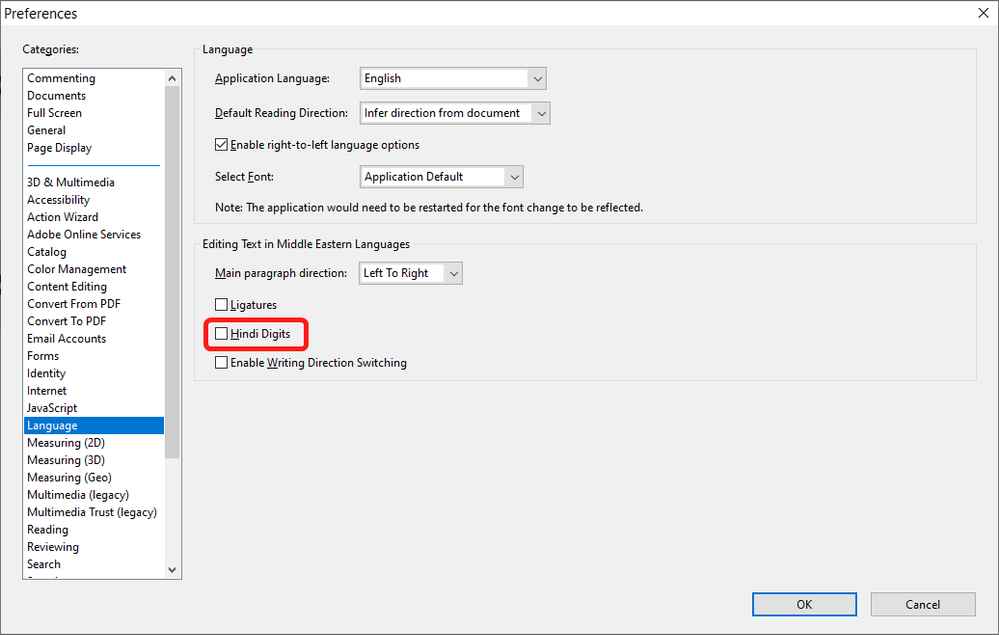
When I am editing text in some (not all) pdf files the characters are coming up like this:   ١٥/٠١/٢٠٢٤  regardlesss of what font is selected
These are Hindi numerals (also used in Arabic).
Off-topic, these numerals are strictly used in Arabic text, these numerals aren't known in India. There is a historical story behind them, but yeah, these numbers are used in Arabic countries only. 🙂
These are Hindi numerals (also used in Arabic).
Off-topic, these numerals are strictly used in Arabic text, these numerals aren't known in India. There is a historical story behind them, but yeah, these numbers are used in Arabic countries only. 🙂
And even more confusingly, the numerals used everywhere else in the world (1, 2, 3, etc.) are actually Arabic numerals (no longer used in Arabic), though...
True. To be honest, the numerals 1234 have continued to be in use in western Arab countries [Mauritania, Morroco, Algeria, Tunesia, and Lybia] while eastern Arab countries switched from originally Arabic numbers 1234, to Hindi numbes ١٢٣٤  somwhere in the ninth century if I'm not mistaken.
Off-topic, these numerals are strictly used in Arabic text, these numerals aren't known in India.
So it turns out....when I was receiving some (not all) pdf files (as attachments or downloads) the default text was set as Hindi. No idea why it is happening just with some files. Will investigate more.